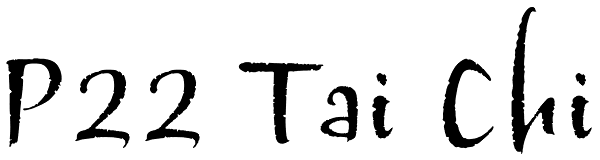
P22 Tai Chi
Experimental lettering Stephen Rapp created in 1999 became the spark that Stephen's imagination transformed into the Tai Chi design. Tai Chi is a display face but it could also be used as a textured calligraphic script. Its delightful sense of...